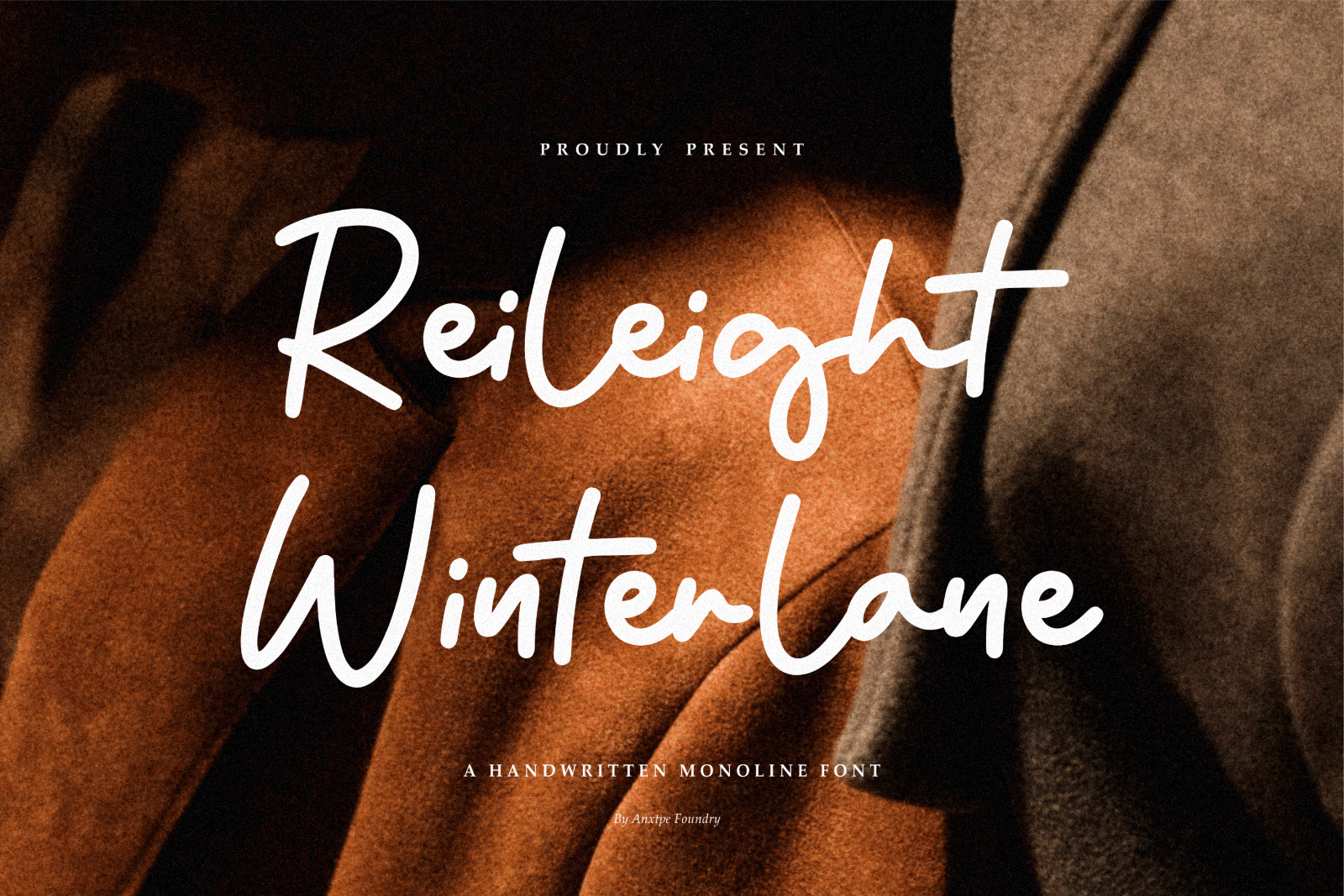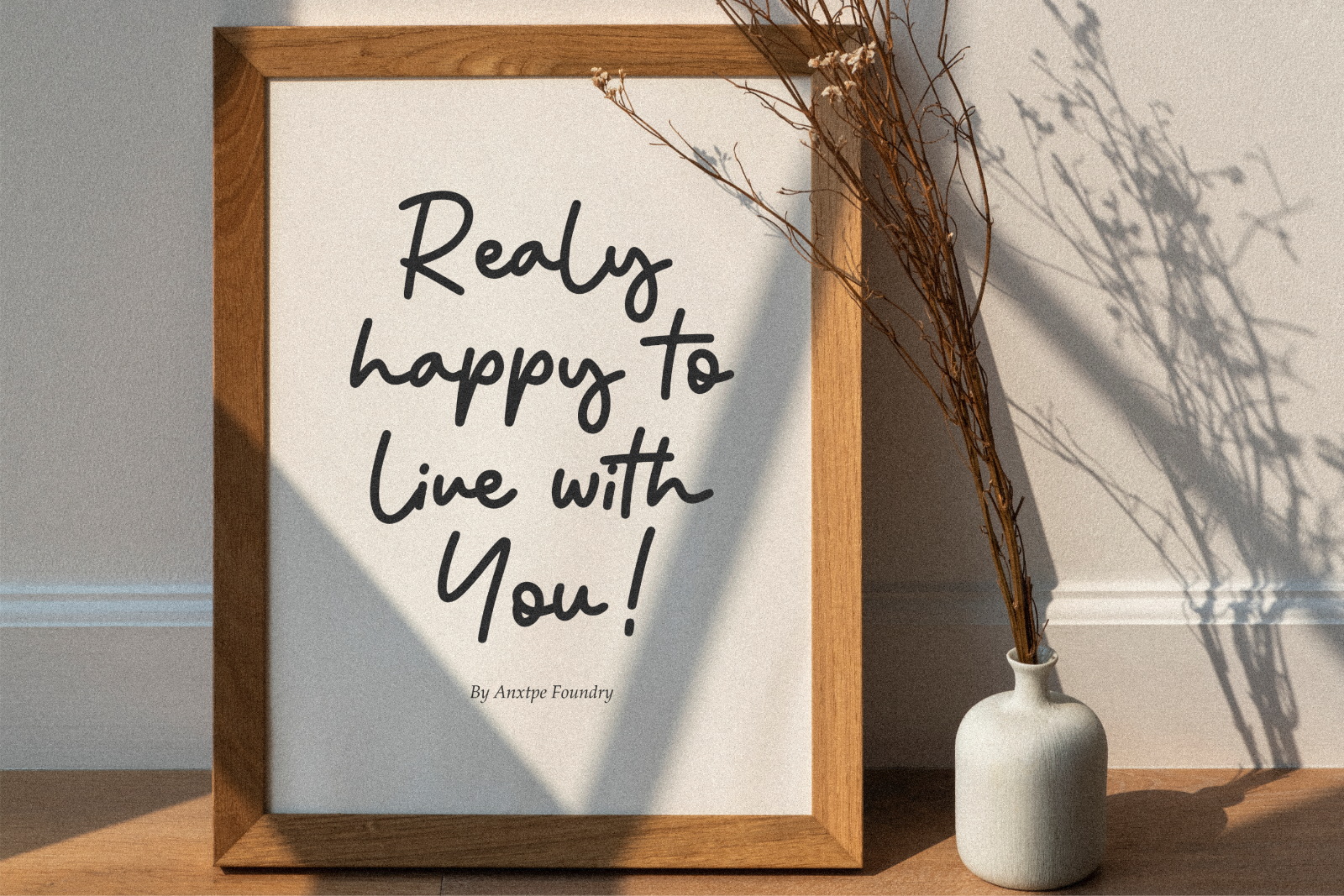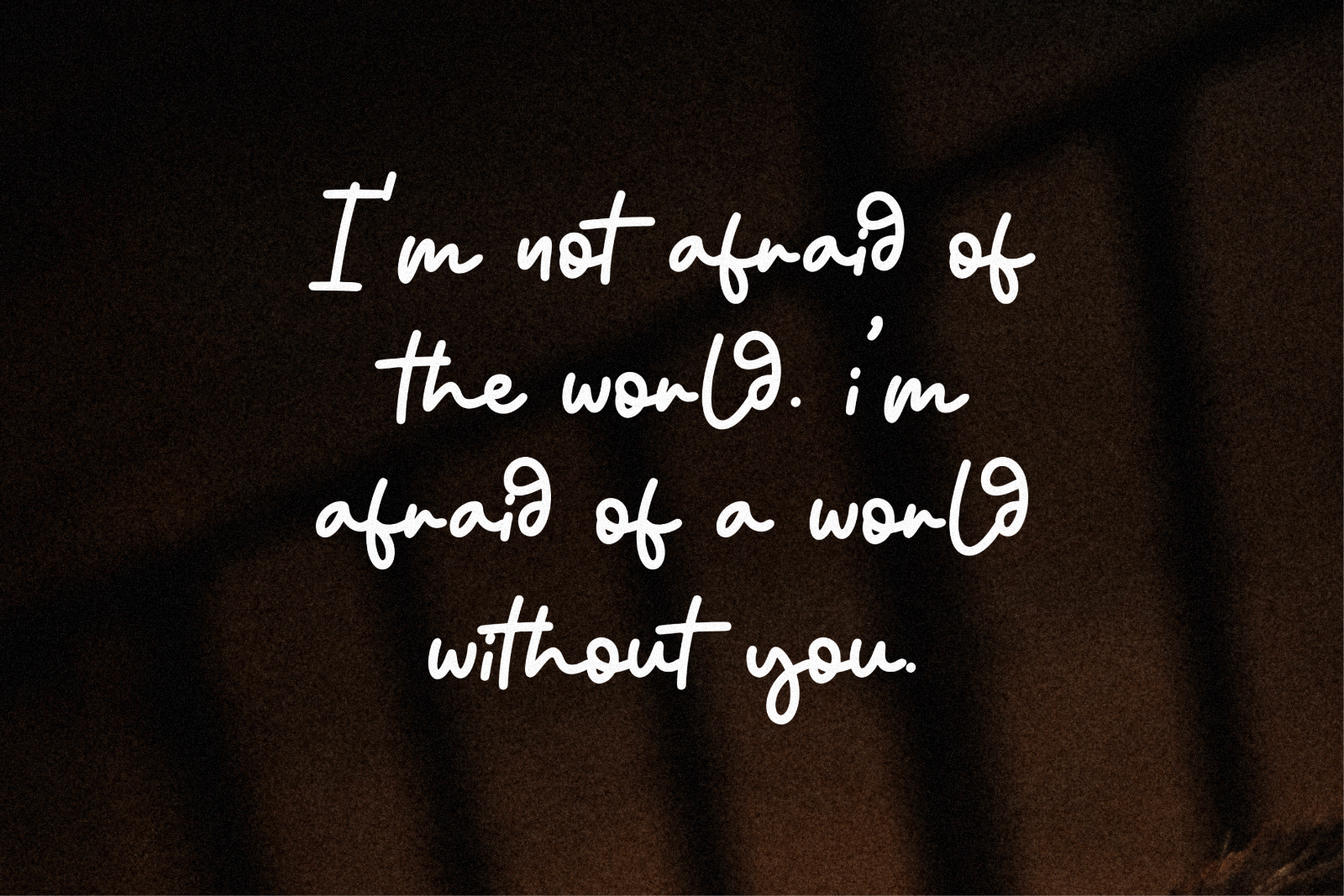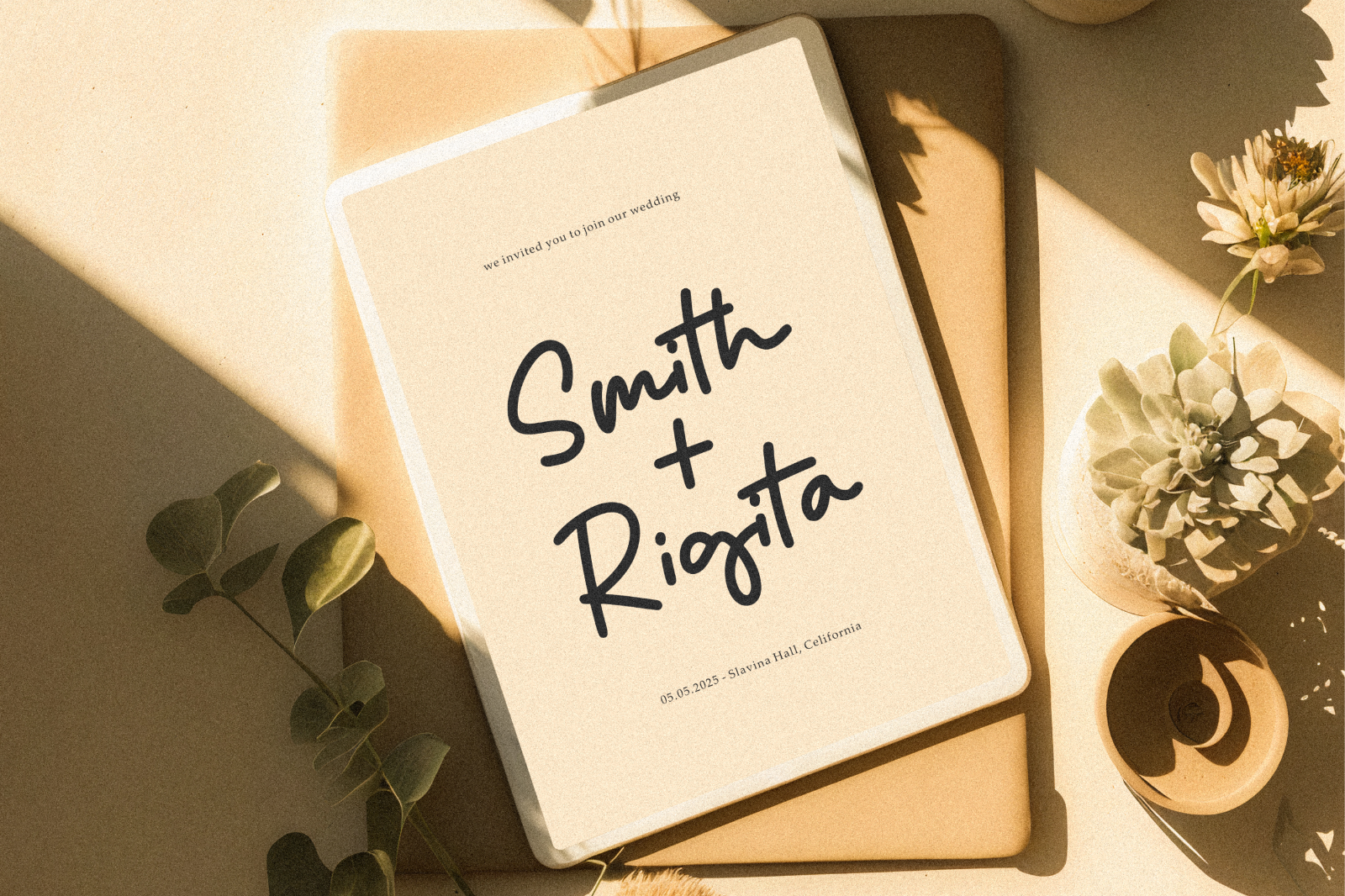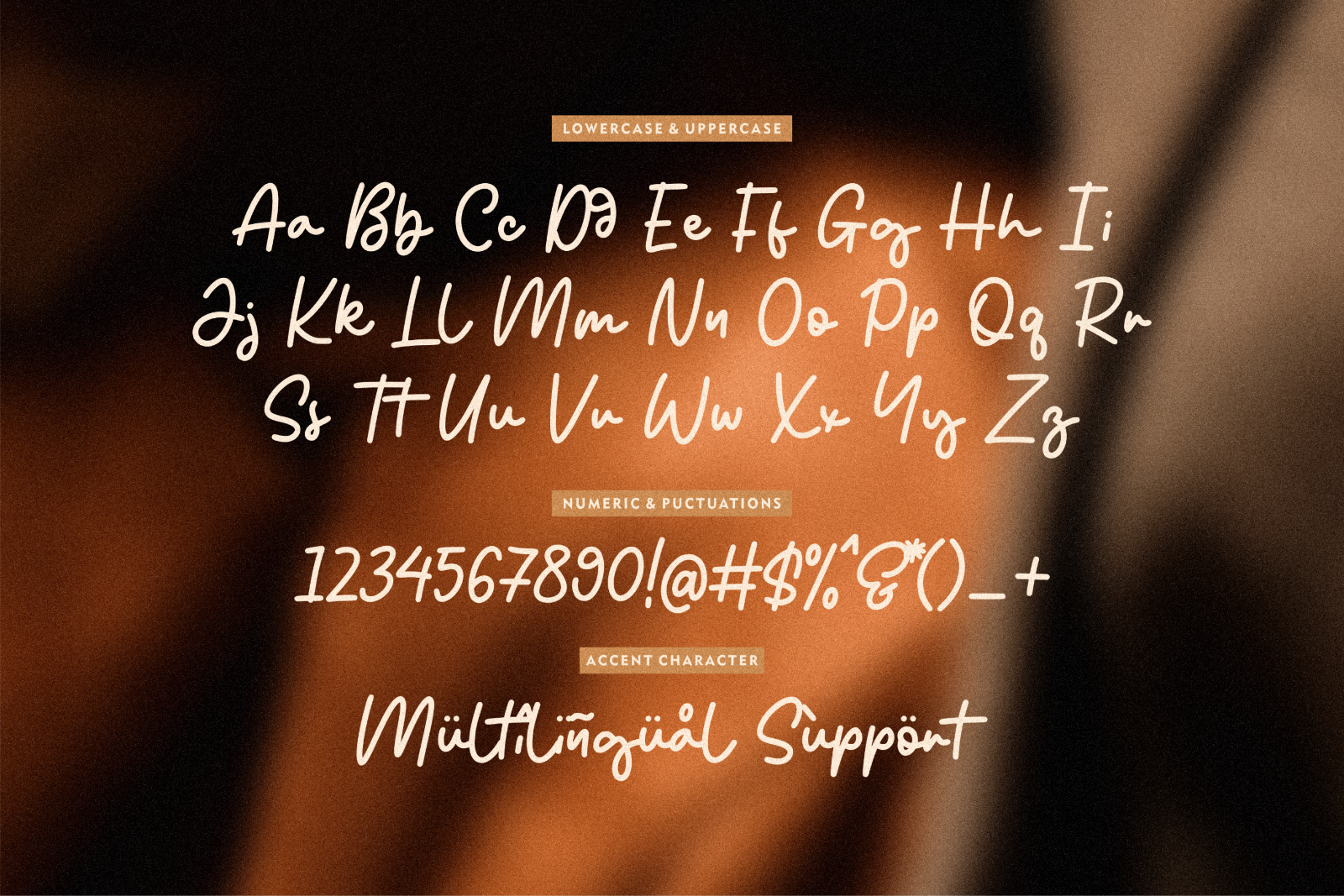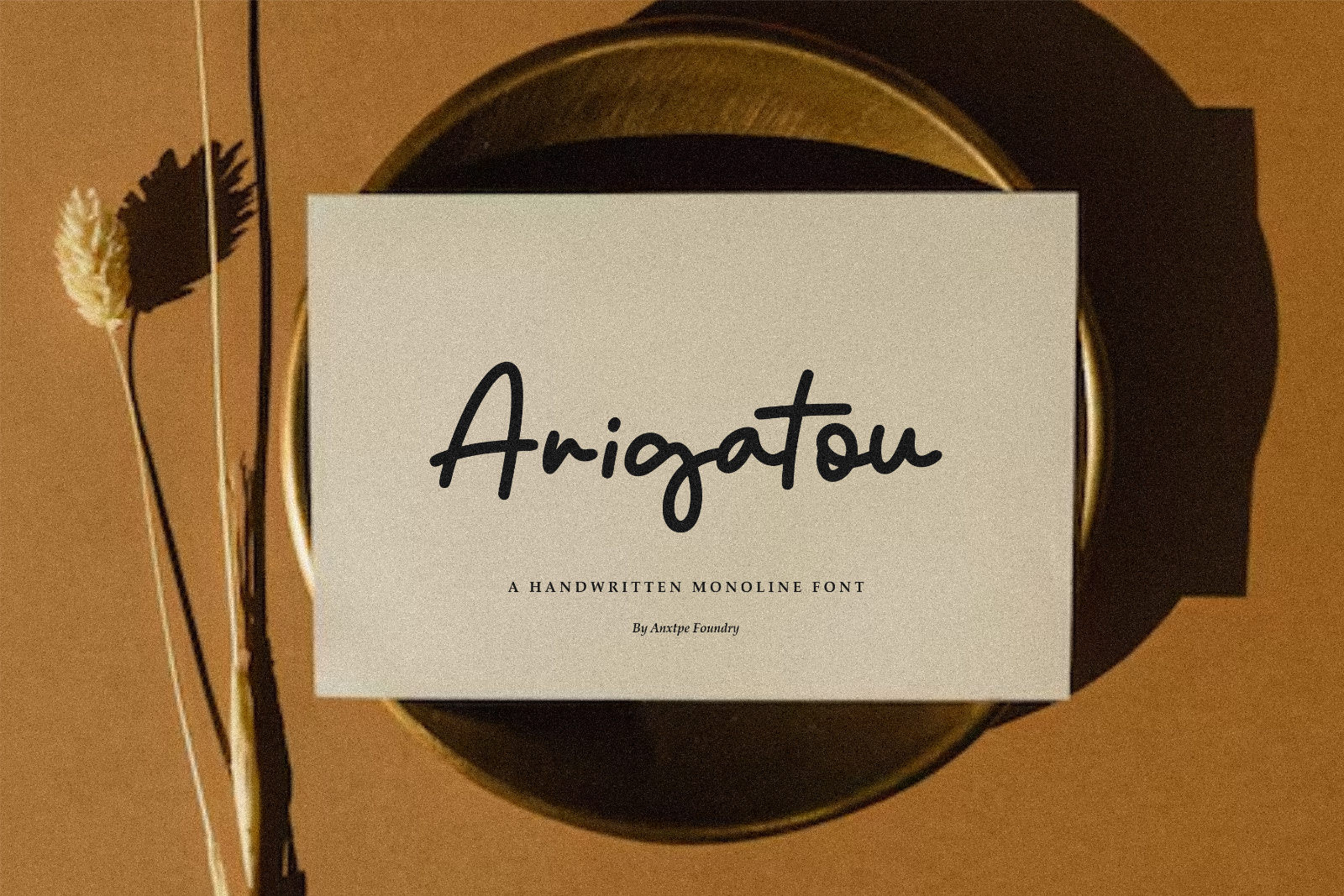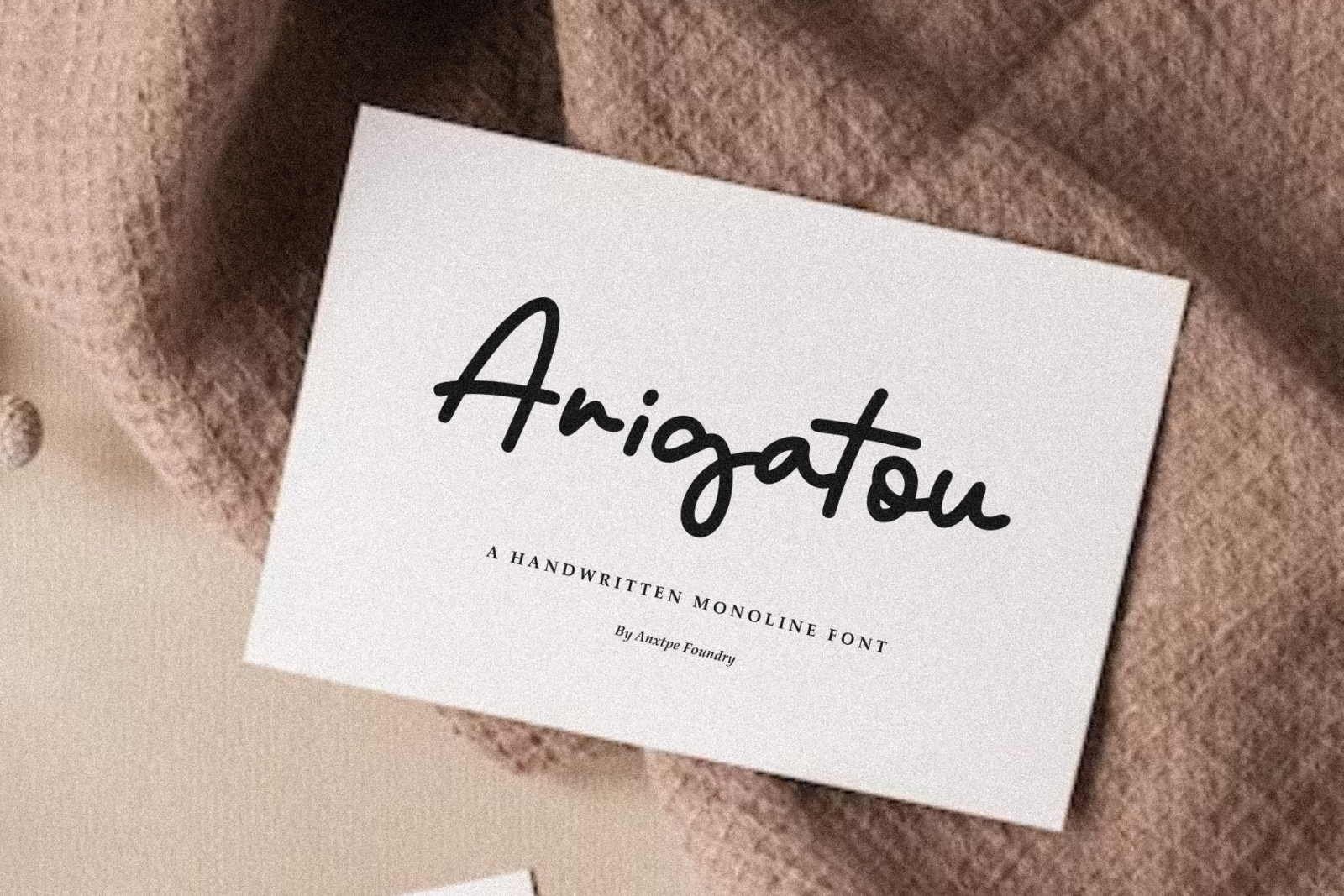
MarketplaceFontsReileight Winterlane - Monoline Script Font
Introducing Reileight Winterlane by Anxietype Foundry, a modern monoline font that accentuates design intricacies. This comprehensive typeface is a brilliant choice for product packaging and branding initiatives, breathing life into their visual appeal. The simplicity of Reileight Winterlane does wonders in the realm of magazines, turning plain text into captivating content. In the world of social media, it ensures your message stands out and engages readers. Ideal for wedding invitations, it adds an elegant touch, making your special day even more memorable. Above all, Reileight Winterlane is designed to let words stand out against any background, echoing a style that is unique and full of character.